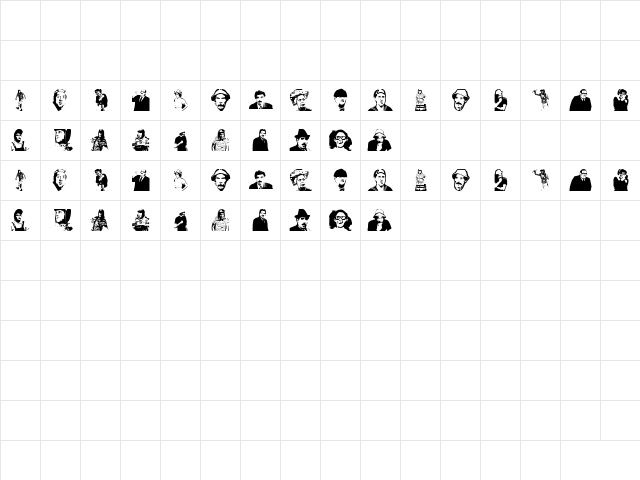
EL CHAVO DEL 8 Regular
Design Context for EL CHAVO DEL 8 Typeface
EL CHAVO DEL 8 is a composed and adaptable typeface that performs quietly and consistently across a wide range of design contexts.